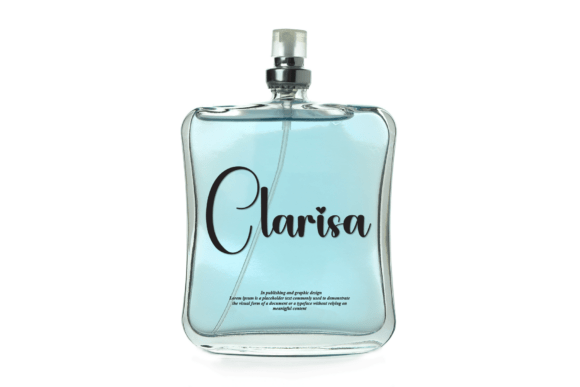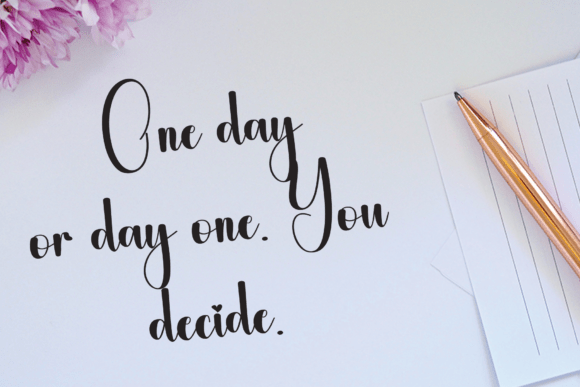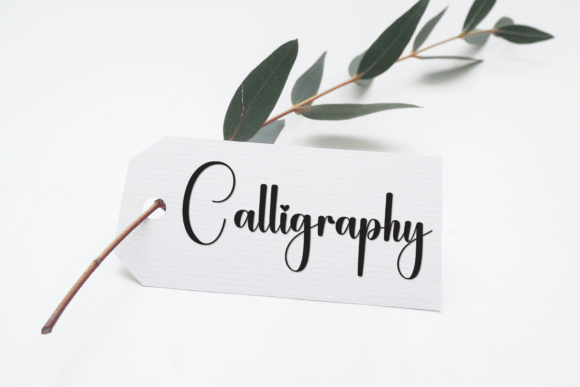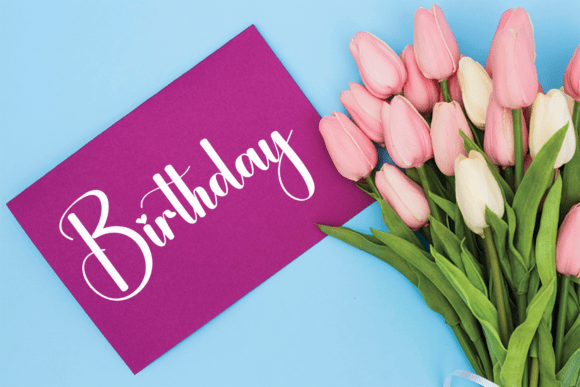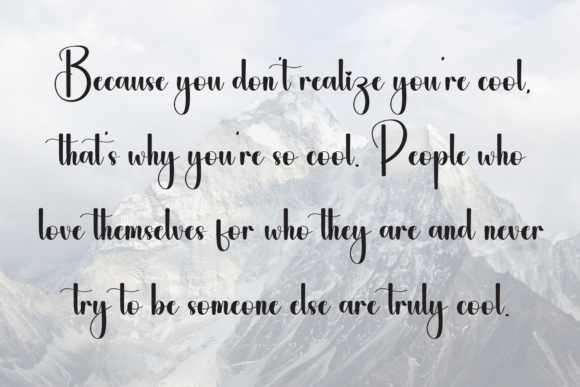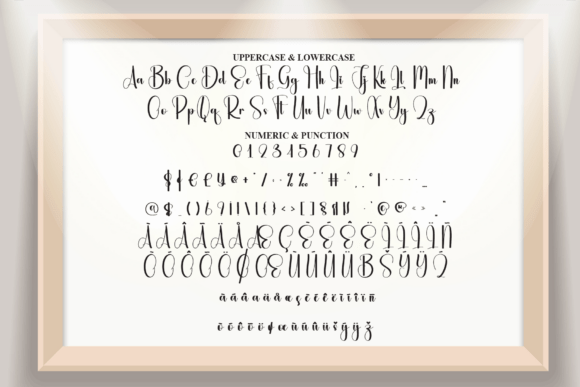
Introduction to Display Theater Font
Have you ever been browsing through a boutique store, and the display font used for their branding just stops you in your tracks? That’s exactly what happened to me when I stumbled upon a beautiful, handcrafted script font that left me speechless. It was love at first sight, and I knew I had to learn more about this charming font. After some research, I discovered the enchanting Display Theater Font, a true gem for designers.
As a designer myself, I know how valuable it is to have access to high-quality design resources that can elevate our creative projects to the next level. The Display Theater Font is one such treasure, offering a unique blend of elegance and playfulness that’s perfect for a wide range of applications, from romantic event invitations to social media headers.
With its fluid brushstrokes, sweeping loops, and charming heart detail, the Display Theater Font is sure to add a touch of whimsy and sophistication to any design project. And the best part? It’s available for free download, making it an essential addition to any designer’s toolkit.
Key Features of Display Theater Font
- Designed with a focus on readability and visibility, making it ideal for use in presentations, movies, and other creative projects.
- Unique characteristics include a bold and eye-catching design, making it perfect for use in theater and movie titles and other creative projects.
Honest Review: Display Theater Font
As a designer, I’m always on the lookout for high-quality fonts that can elevate my creative projects. The Display Theater Font is a great addition to any design resource library. ✨ Its bold, dramatic lines make it perfect for headings and titles in any design.
One of the standout features of this font is its transparent background, which makes it easy to customize and pair with other design elements. I also appreciate that it’s available for free download, making it accessible to designers of all levels.
- High-quality design that’s perfect for headings and titles
- May not be suitable for body text due to its bold, dramatic style
- Could be overwhelming if used in excess
Overall, I’m impressed with the Display Theater Font. It’s a great addition to any design resource library, and I’m happy to have it in my toolkit. With its high-quality design and transparent background, it’s a versatile font that can add a touch of drama to any creative project.
The Display Theater Font is commonly used for creative projects, such as movie posters, concert flyers, and event invitations. It’s also used in graphic design, advertising, and branding. With its high-quality design and transparent background, the Display Theater Font is a versatile design resource for any creative project.